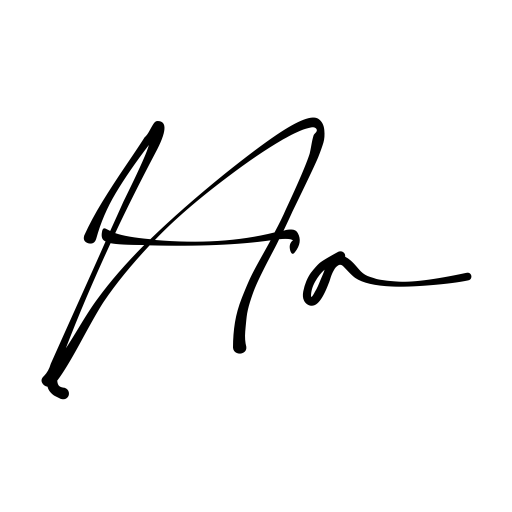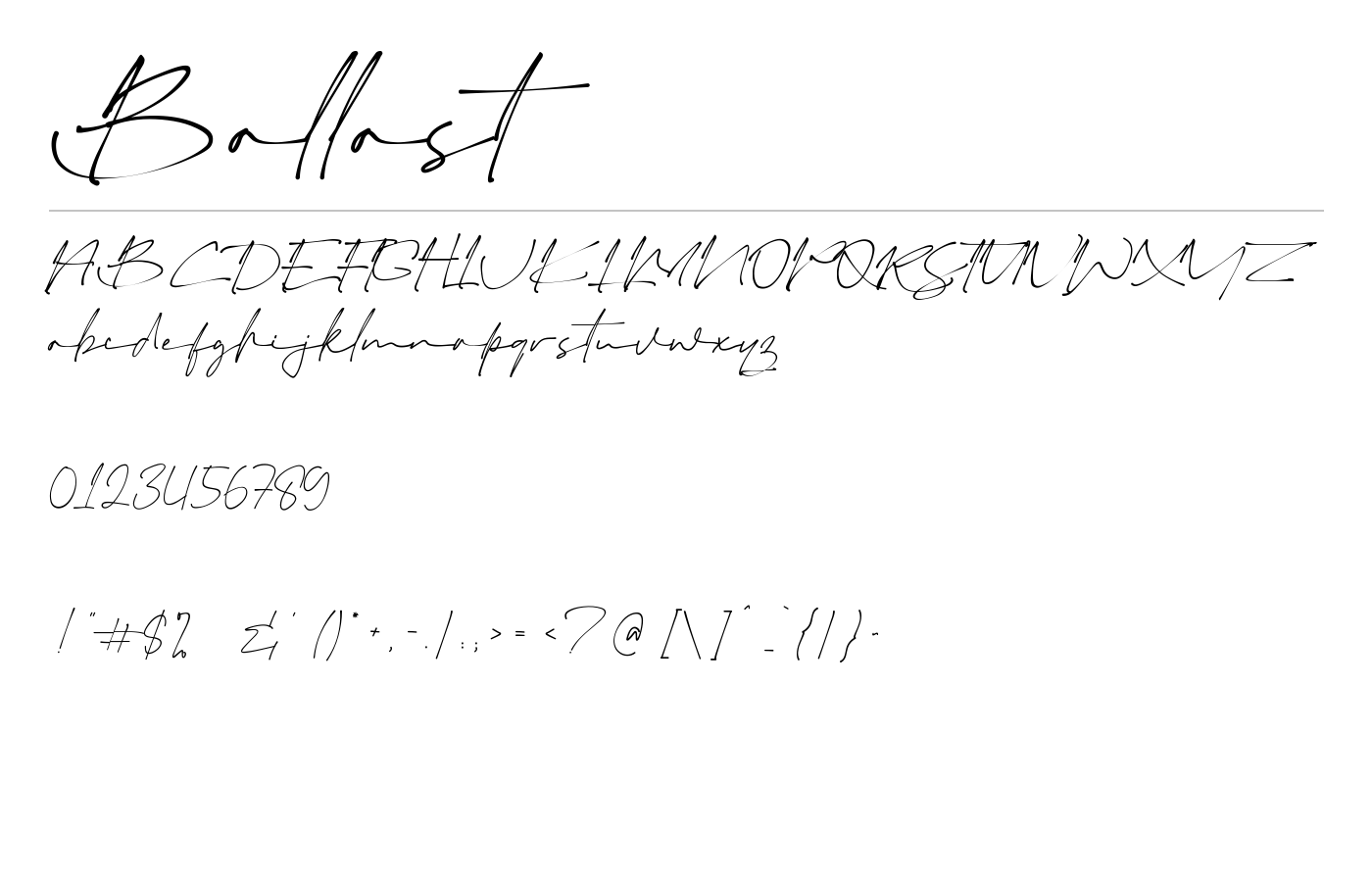
Ballast is an elegant, thin script font that mimics natural, flowing handwriting with a delicate and airy feel. Its slender, slightly irregular strokes and tall x-height give it a modern yet personal touch, making it ideal for creative branding, invitations, and stylish editorial accents where a sophisticated, handcrafted vibe is desired.
Ballast Font
About Ballast Font